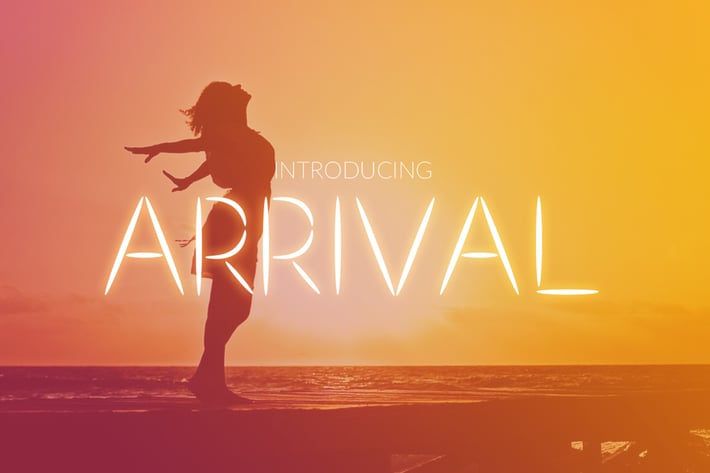
Arrival Font
Arrival Font a unique display typeface and awesome character with 3 different style, regular, slant & bold. Arrival font support multilanguage. Arrival it’s perfect for namecard, poster, logo, magazine, cover, banner, tshirt and headers, or even large-scale artwork.